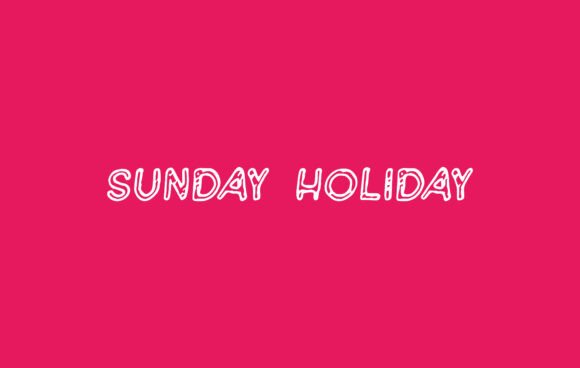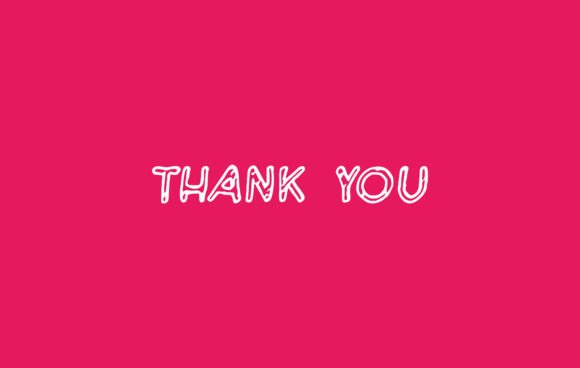
Introduction to Hendrix Font
Hendrix font is an authentic handwritten font with a romantic touch.
Key Features of Hendrix Font
Why Choose Hendrix Font?
Hendrix Font offers exceptional quality and versatility, making it a valuable addition to your design toolkit. Whether you’re creating for personal projects or commercial use, Hendrix Font delivers professional results.